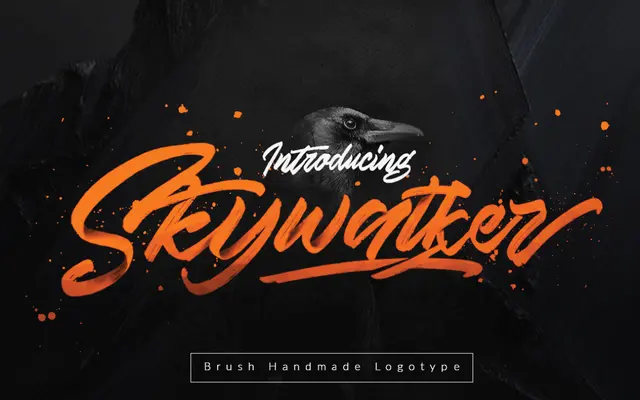
A brush script typeface from Dirty Line Studio offered in a regular and smoothed variant, aimed at display and logo use.
Comes in three variants: a textured Regular, a Smooth version with cleaner strokes, and a dedicated Brush cut. The family targets display, logo and branding contexts where a handmade brush quality is wanted. Licensing tiers range from desktop through to worldwide corporate, suggesting a commercial focus on identity work.
Marketed as a brush typeface with a 'Regular' and 'Smooth' variant, placing it firmly in the brush script category typical of display hand-lettering work.